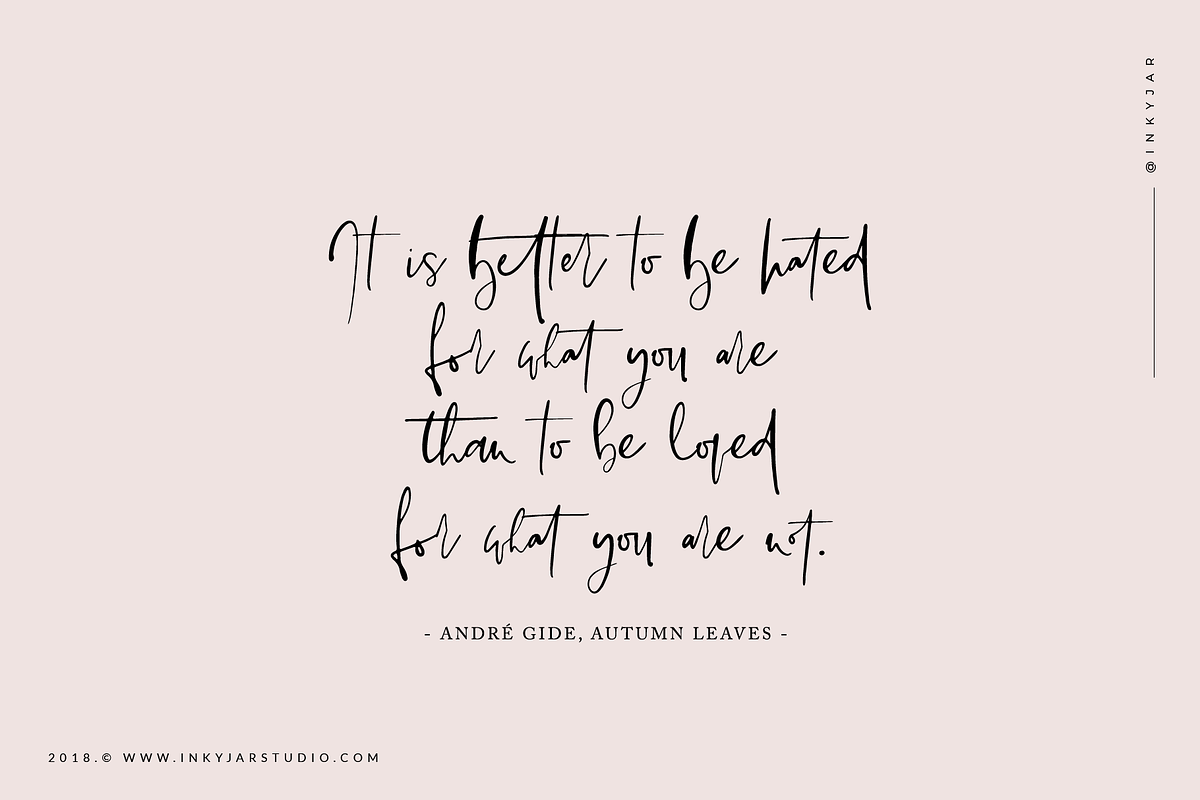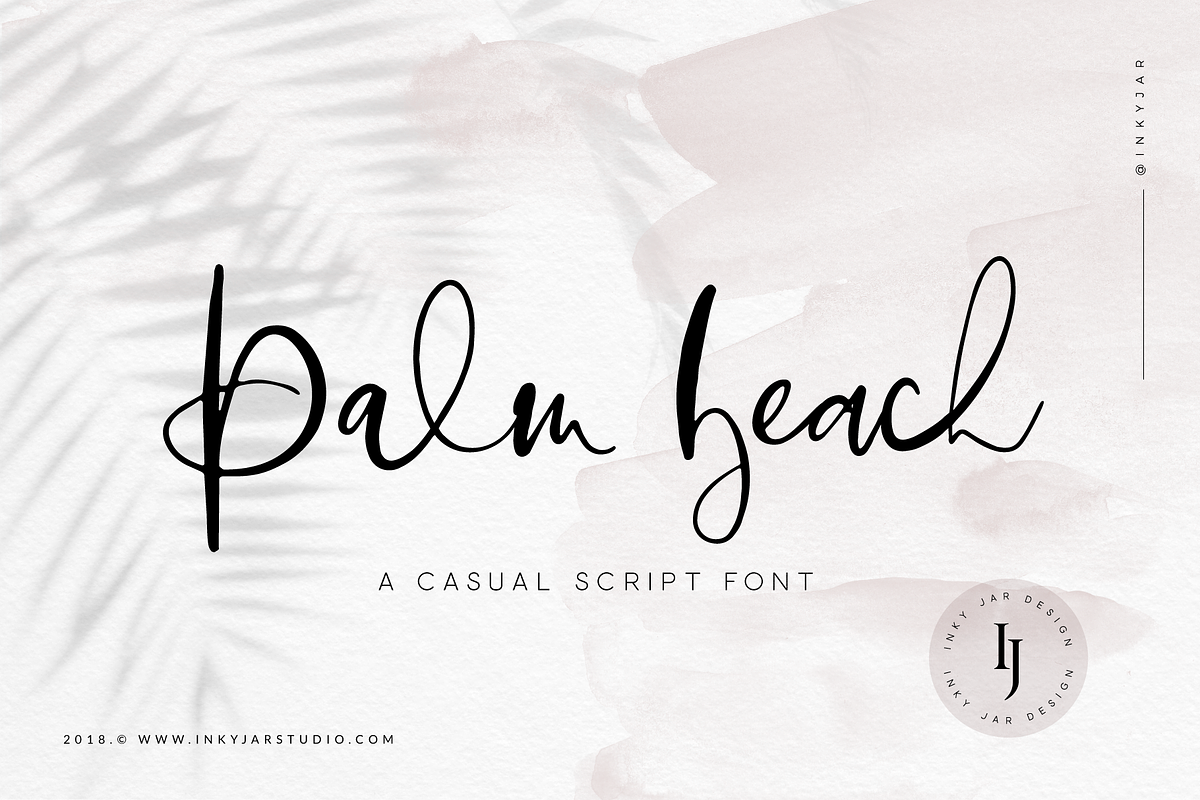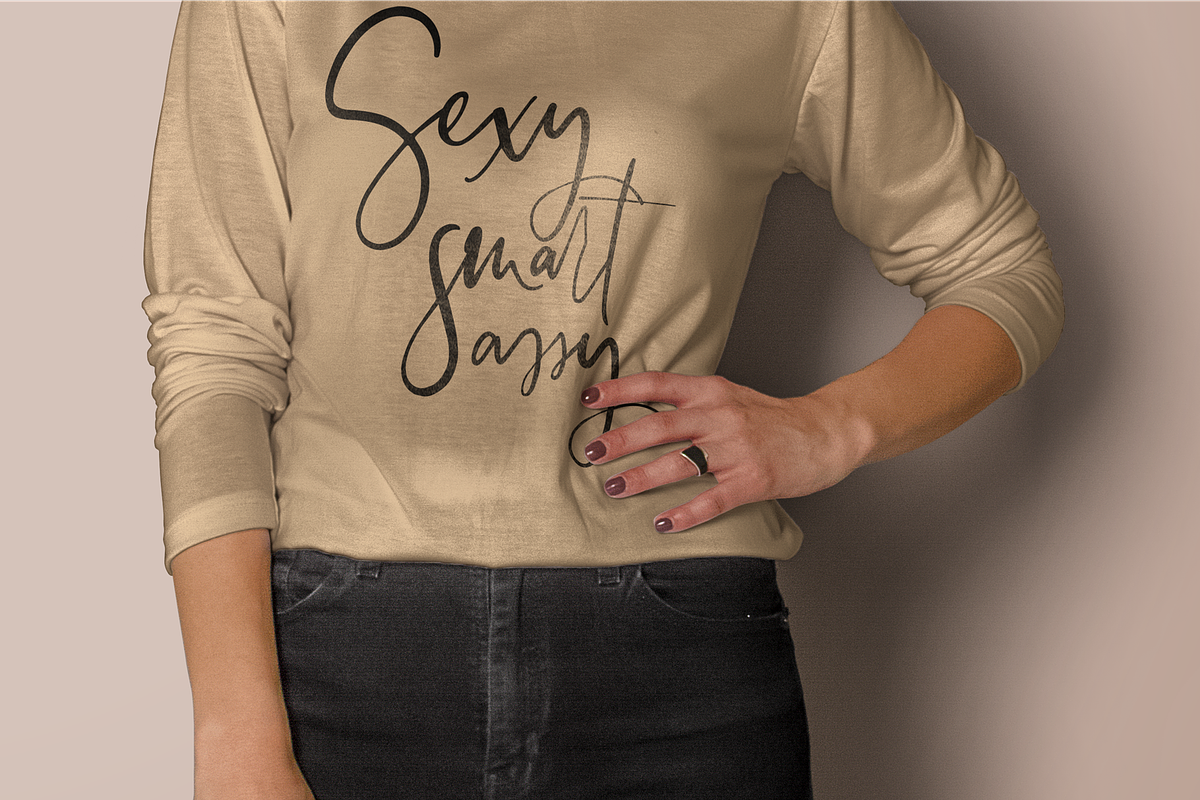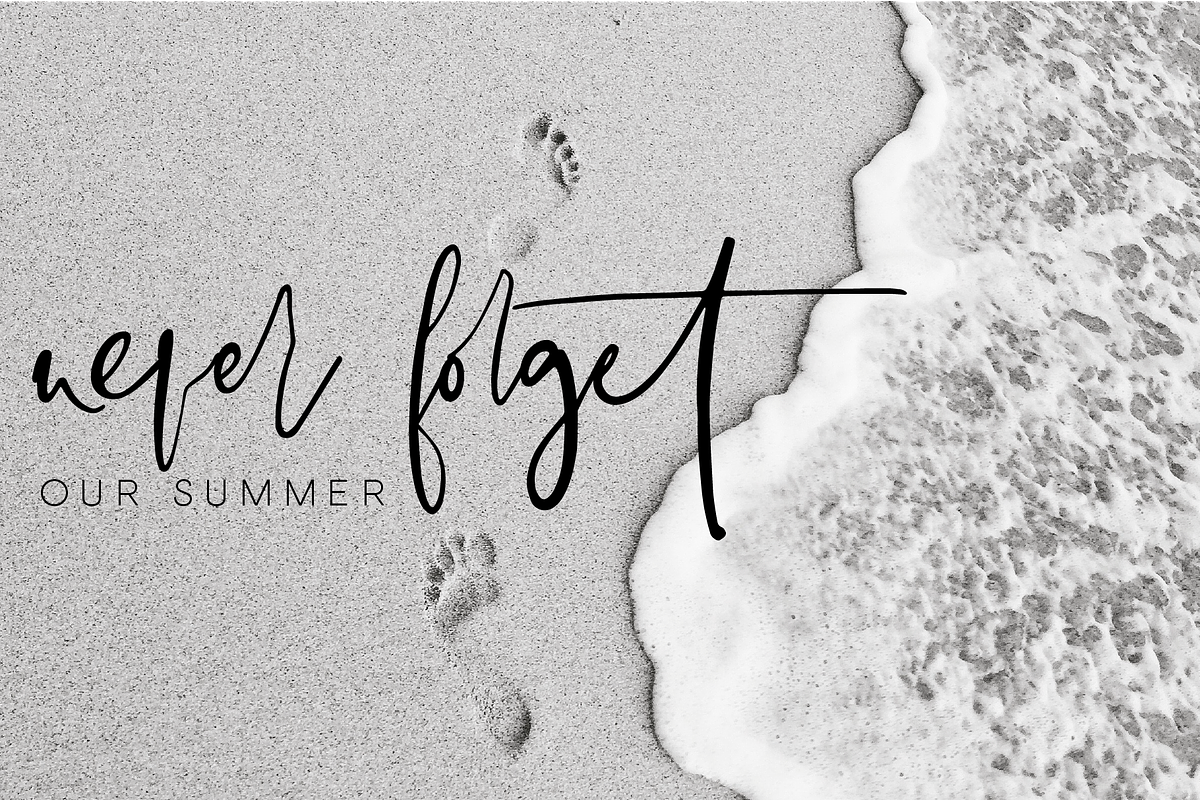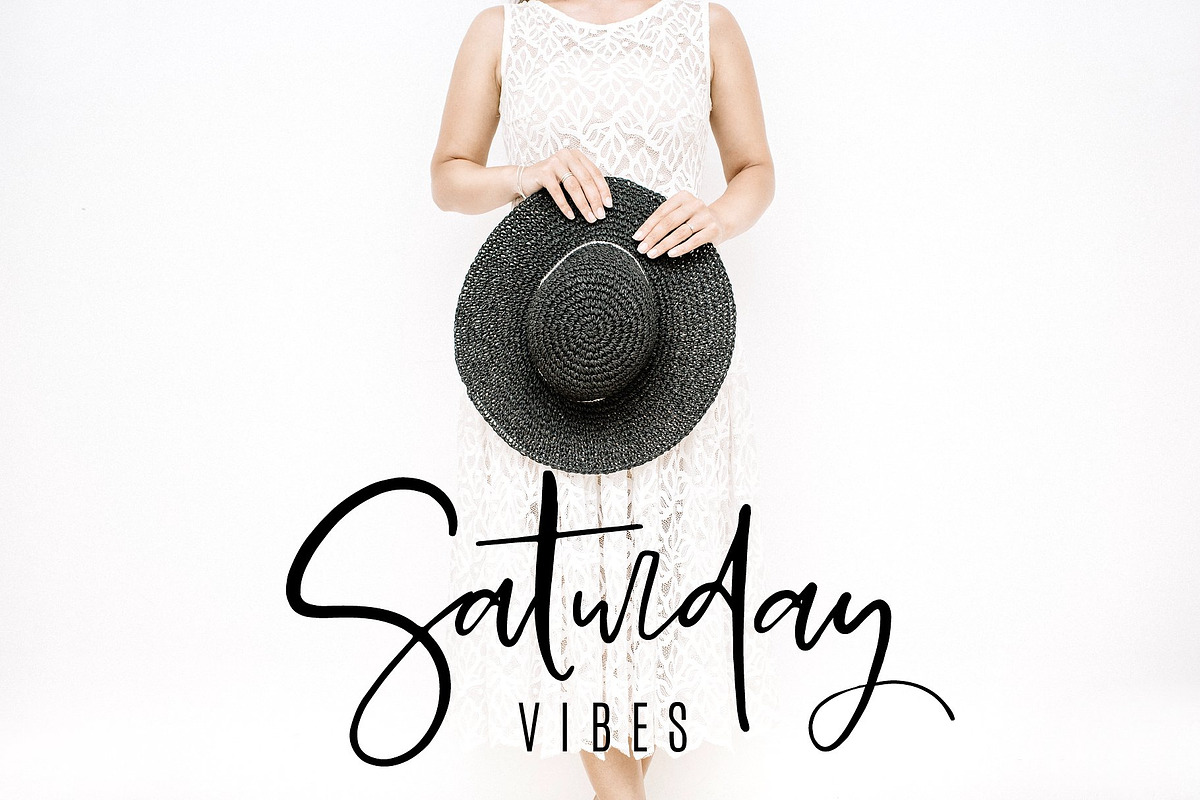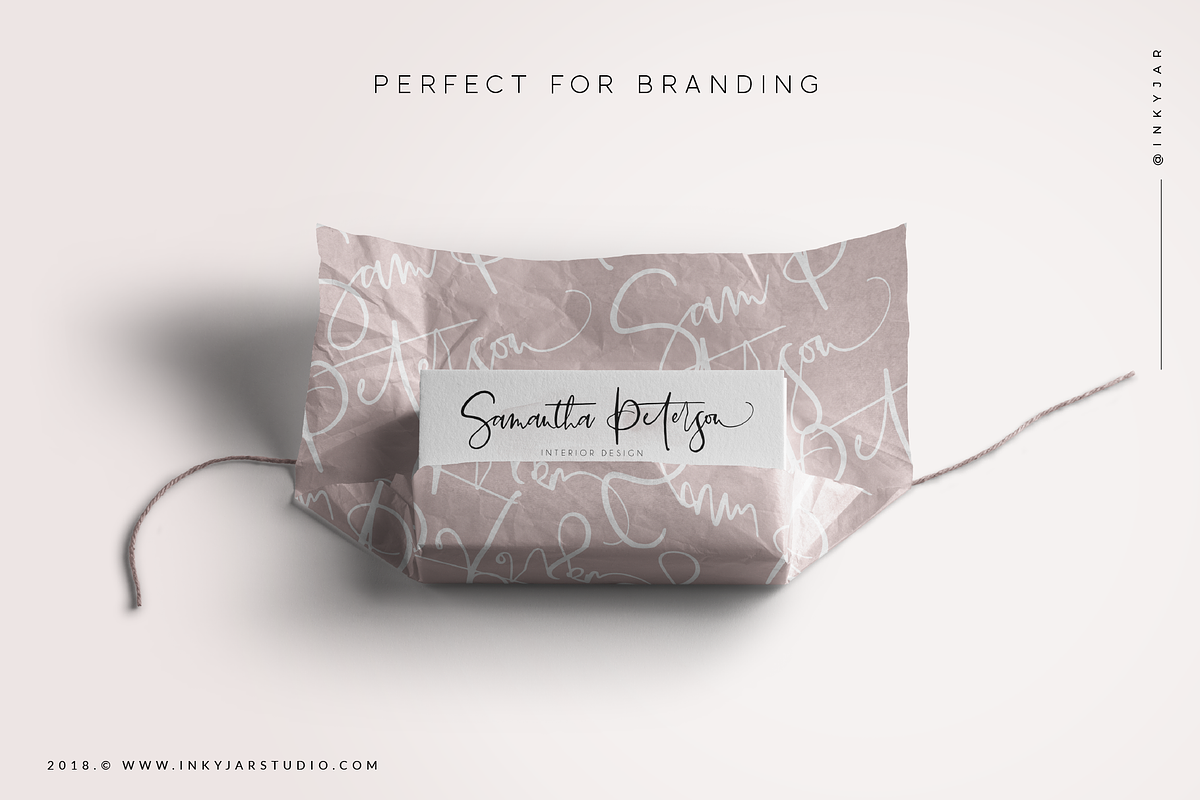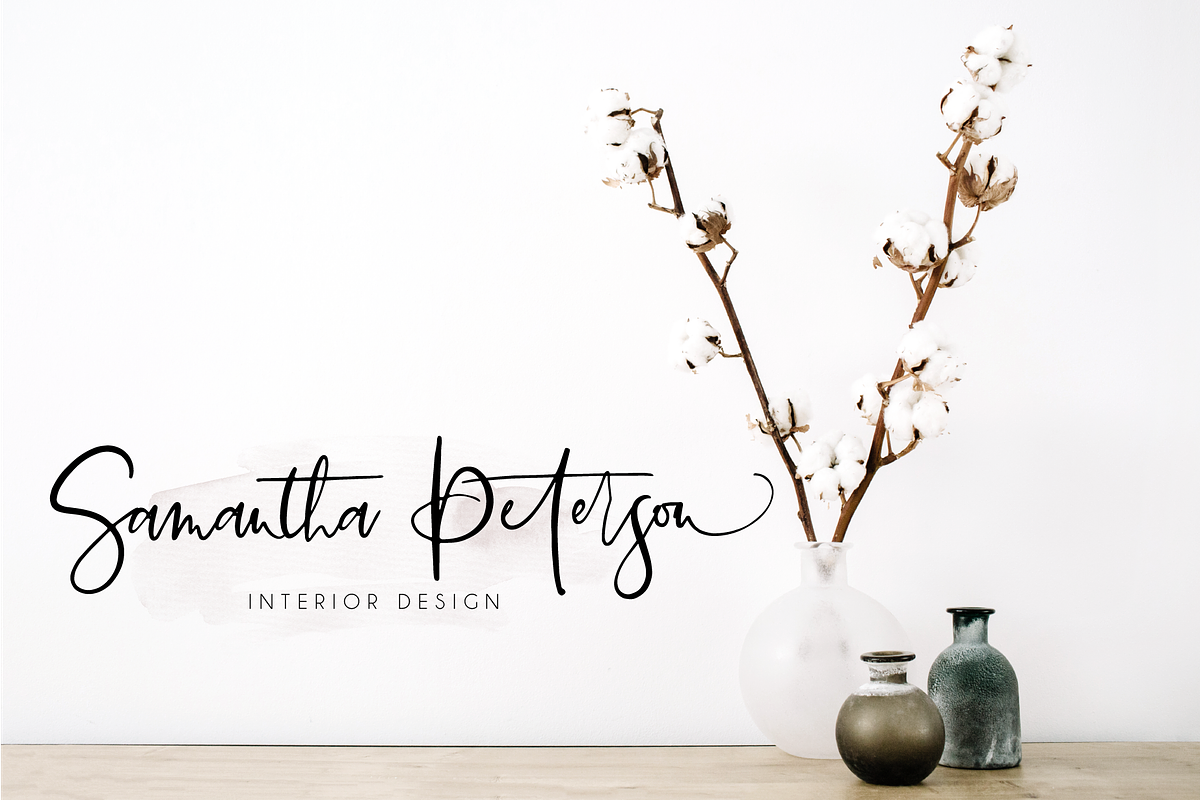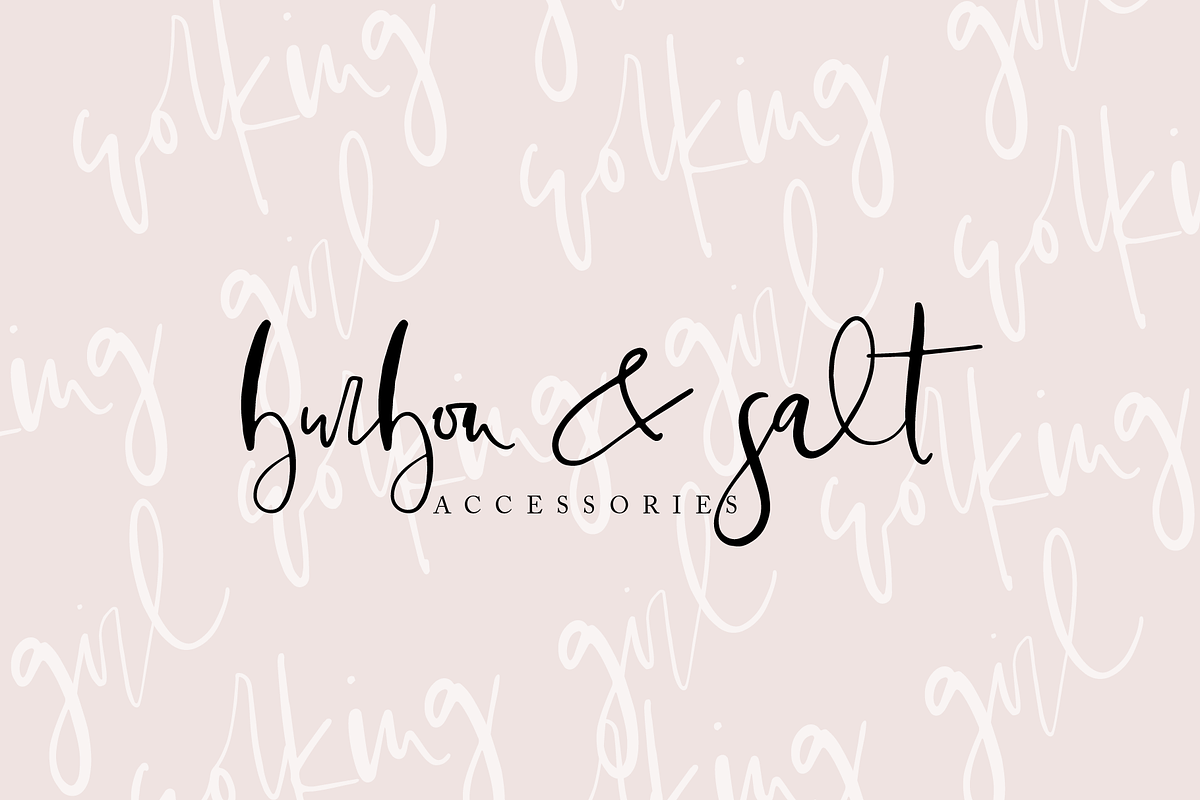
Palm Beach | Casual Script Font
Palm Beach Casual Script Font is a perfect for branding, Instagram posts or quotes, and it comes with a lot of ligatures so you can keep the casual, handwritten feel. It also has a set of beginning and ending swashes which is different for each character set. It is PUA encoded, so you can use the swashes in various programs easily. WEB FONS INCLUDED.